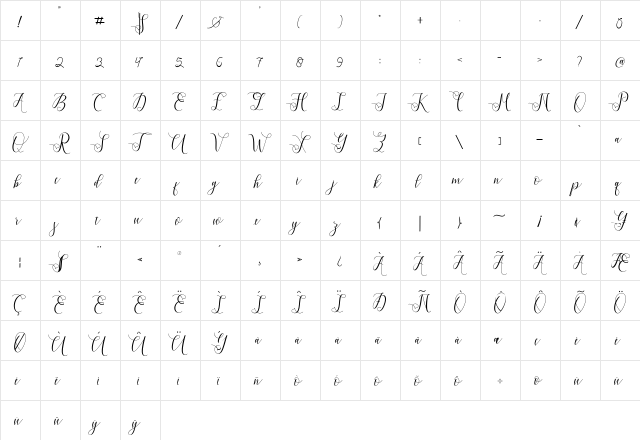
Violetta Script Regular
Design Context for Violetta Script Typeface
Violetta Script brings a calligraphic fluidity to the page — its connecting strokes and expressive curves give it an unmistakably human quality.
Font Pairing: Combine Violetta Script with a simple geometric sans for maximum contrast — the tension between flowing curves and clean structure is a classic typographic pairing.
Pro Tip: Use Violetta Script for short runs of text — names, titles, or taglines. Extended body copy in script faces tires the eye quickly.